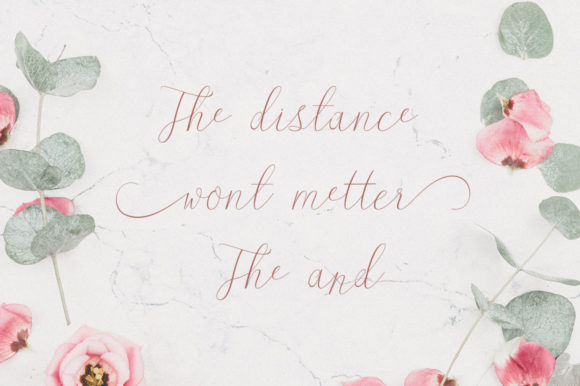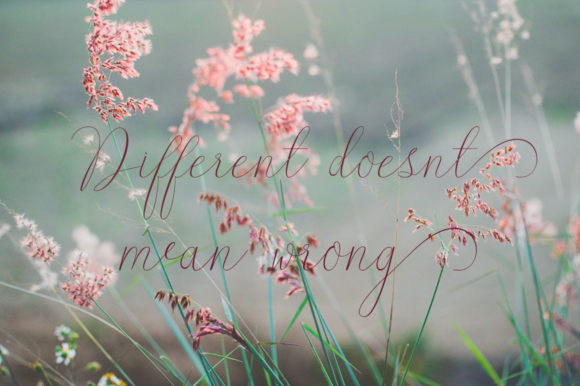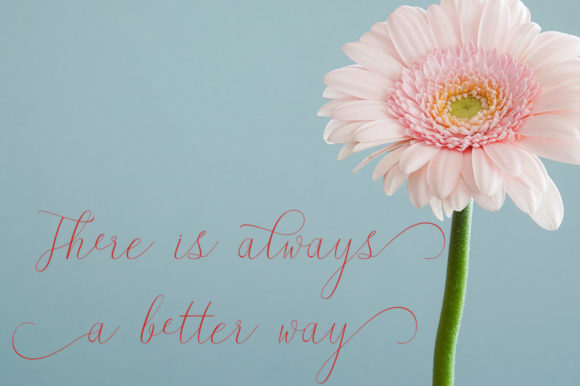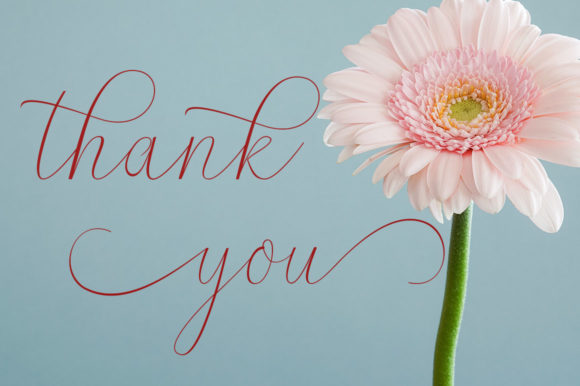
The Designer’s Delight: Unwrapping the Charm of Dellove Font
I’ll never forget the time I was working on a project for a client who wanted a font that was both elegant and bold. I had spent hours scouring the internet for the perfect match, but nothing seemed quite right. That was until I stumbled upon Dellove Font. It was like a breath of fresh air – a stunning, delicate handwritten font with a bold twist that instantly elevated my design. In this article, I’ll share my love for Dellove Font, its features, and how you can make the most of it in your design projects.
An Honest Review of Dellove Font
What I Love About Dellove Font
- ✨ Elegant and Refined: Dellove Font boasts a sophisticated, handwritten look that’s perfect for designs that require a touch of elegance.
- ✅ Bold and Versatile: This font seamlessly combines delicate and bold elements, making it suitable for a wide range of design projects.
- 💡 OpenType Features: Dellove Font comes with advanced OpenType features, including stylistic alternates and glyphs, allowing for endless creative possibilities.
While Dellove Font is an exceptional font, there are a few minor quirks to be aware of:
- ⚠️ Limited Use in Small Sizes: Due to its intricate design, Dellove Font may not be the best choice for very small font sizes, as some details might get lost.
- 🤔 Occasional Kerning Issues: As with many fonts, you might encounter some kerning issues, especially when using certain character combinations. However, these can usually be easily adjusted in most design software.
The Backstory of Dellove Font
Dellove Font was crafted with love and care by a talented type designer who aimed to create a font that would bring a touch of elegance and sophistication to any design project. Inspired by classic calligraphy and modern handwriting, Dellove Font is the perfect blend of traditional and contemporary styles.
Q: What makes Dellove Font unique?
A: Dellove Font stands out due to its delicate yet bold handwritten style, combined with advanced OpenType features for endless creative possibilities.
Q: Is Dellove Font suitable for body text?
A: While Dellove Font is stunning, it’s more suited for headlines and titles due to its intricate design. For body text, consider a clearer, more readable font.